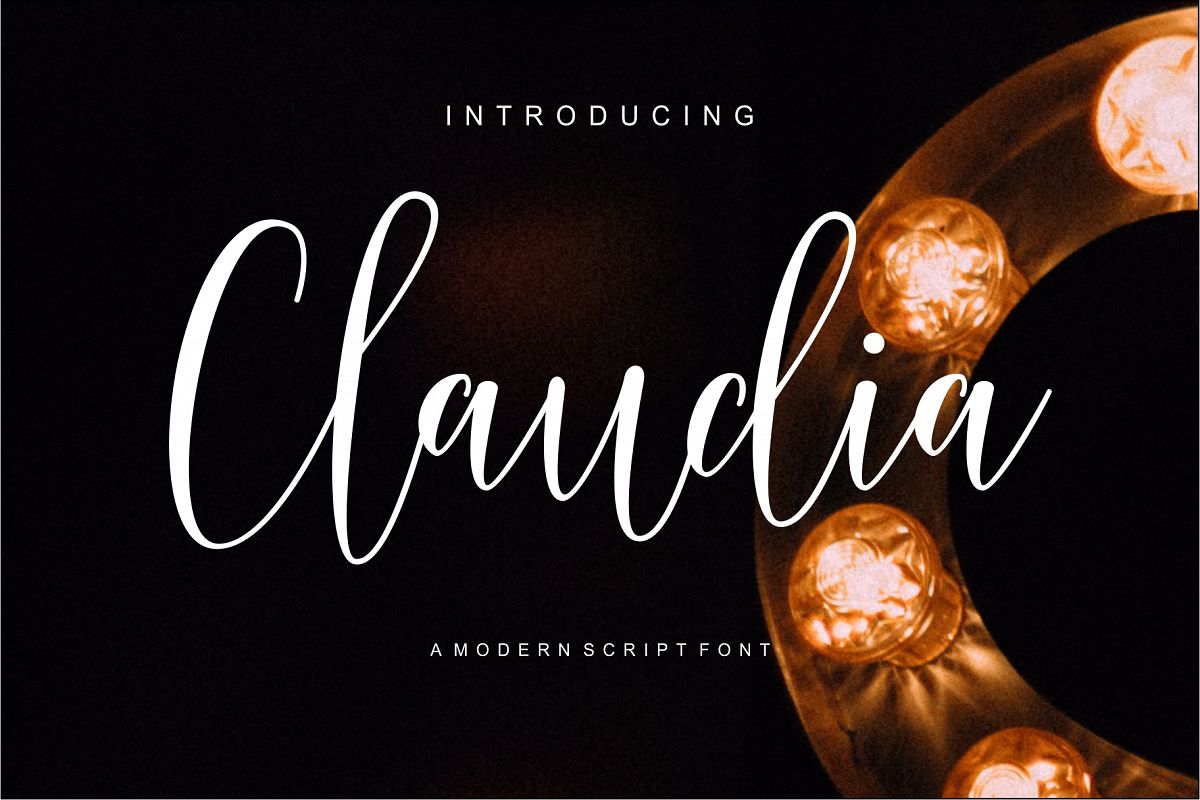
Claudia Modern Script
Take a look this fonts.Claudia is a script font. Claudia is equipped with plenty of OpenType features: To activate the alternates click on Swash, and Stylistic Alternates in any OpenType savvy program or manually select the characters from Glyph Palette.